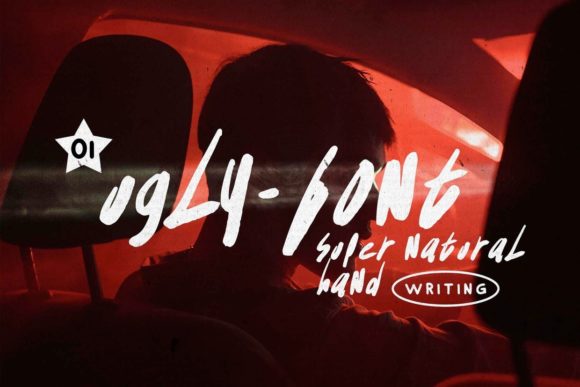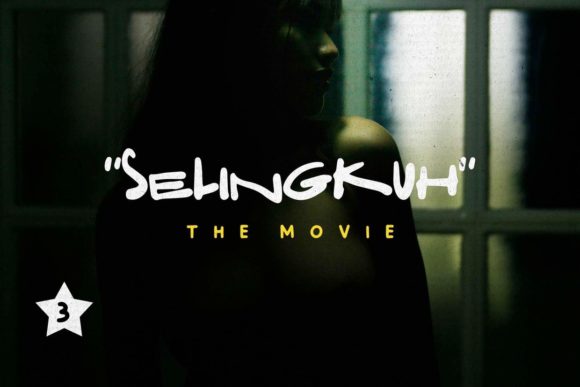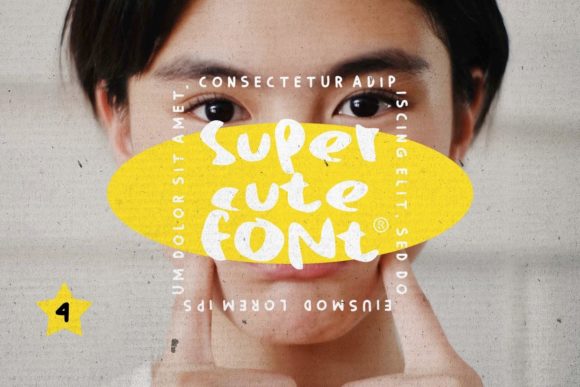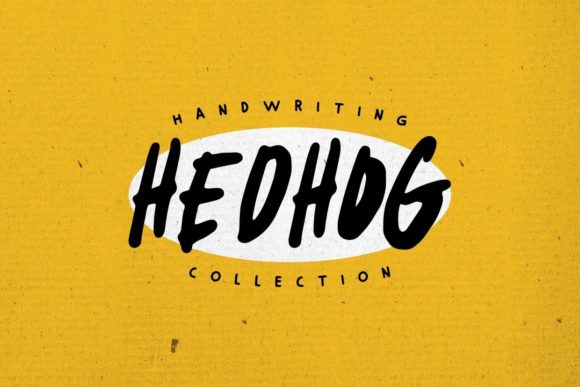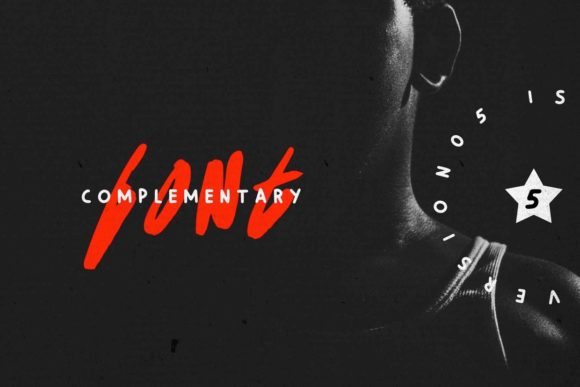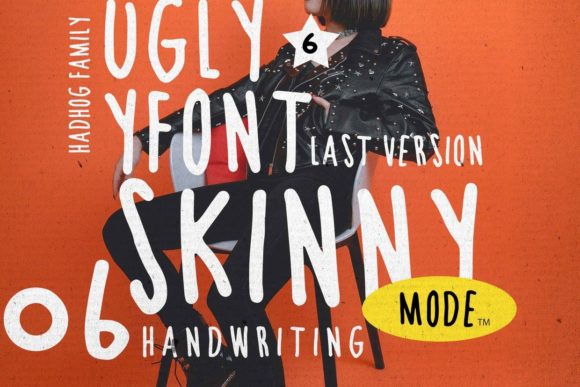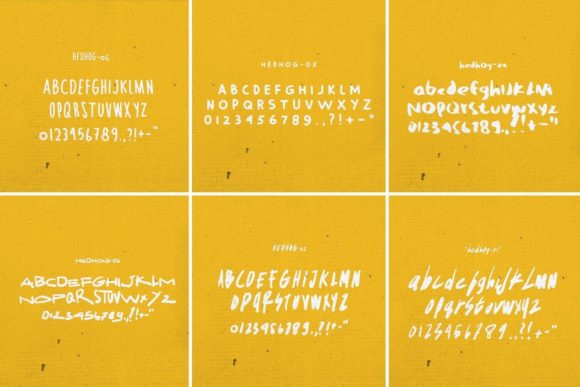
Hedhog Font
About Hedhog Font
Hedhog is a casual, urban styled and relaxed handwritten font. Whatever the topic, this font will be a wonderful asset to your font library, as it has the potential to enhance any creation.